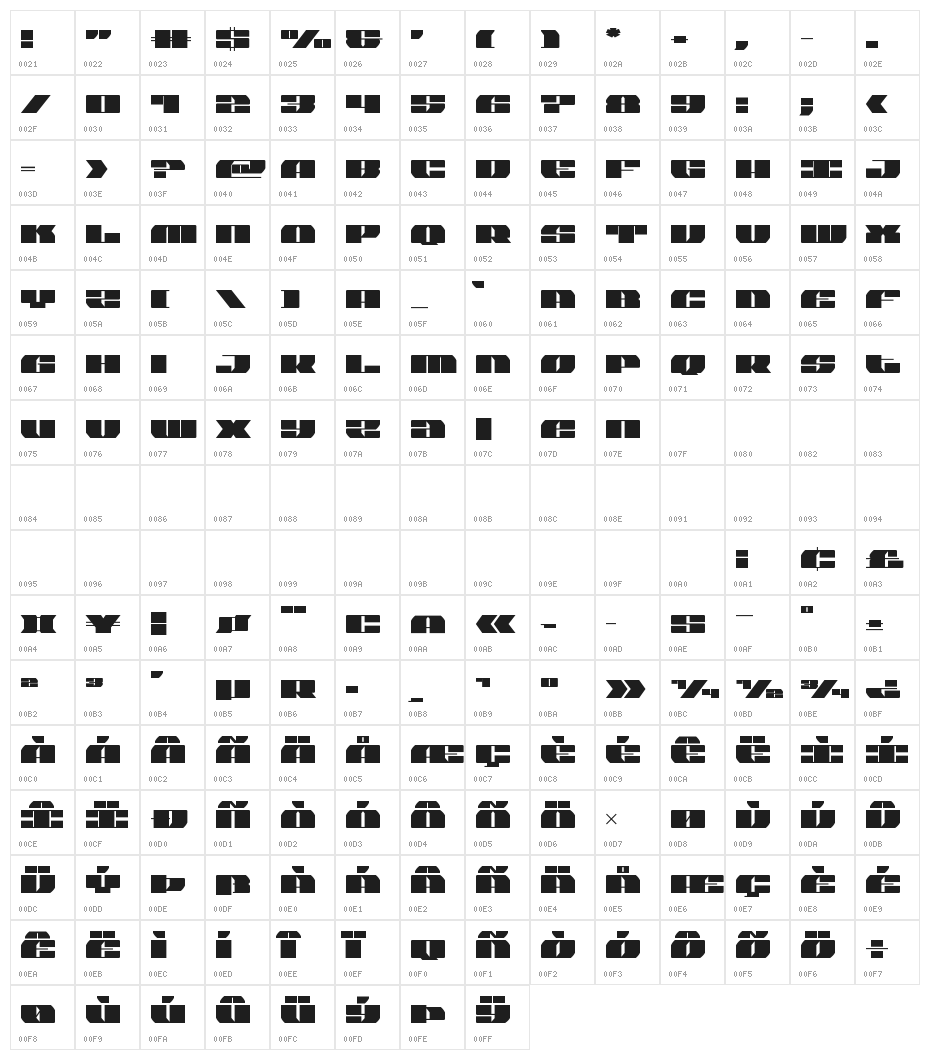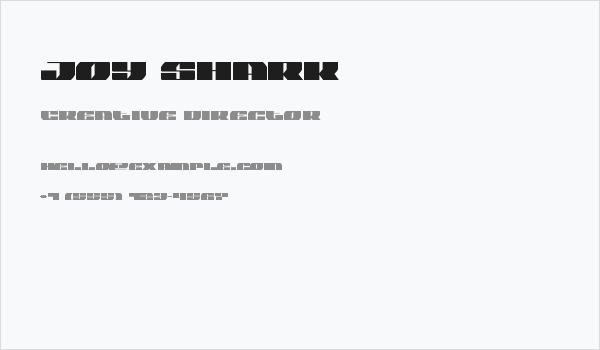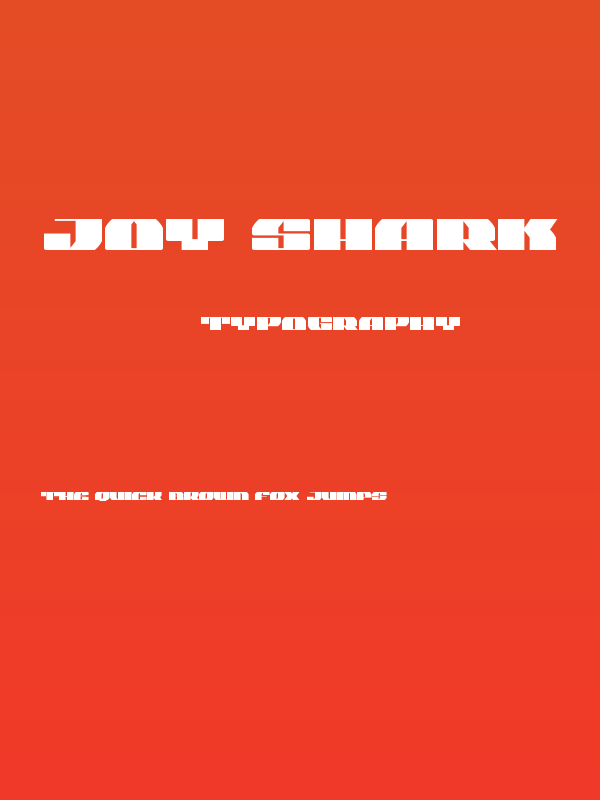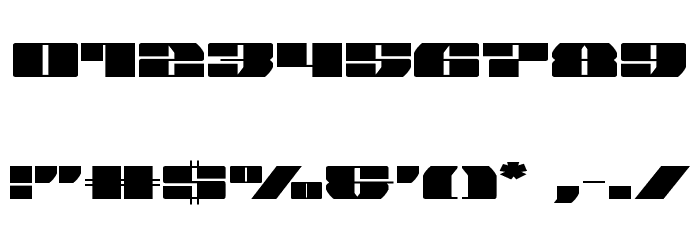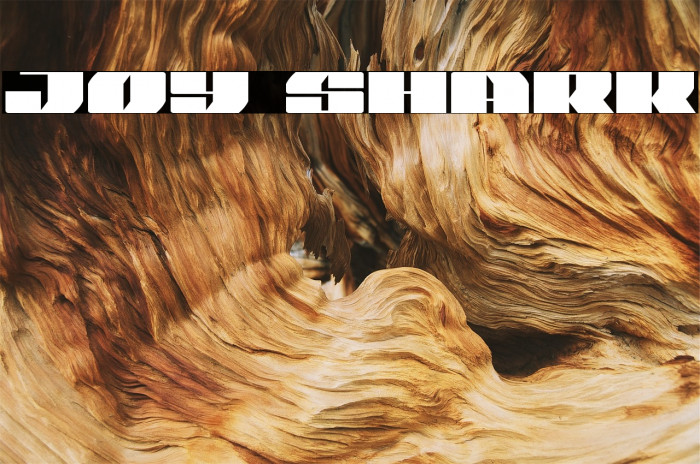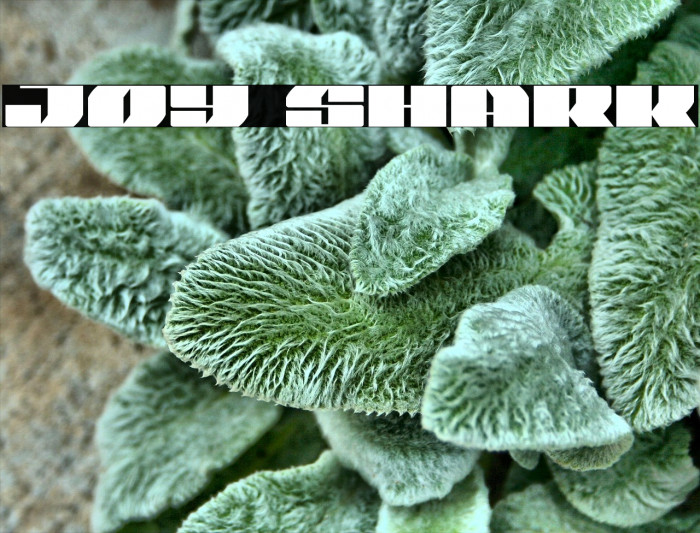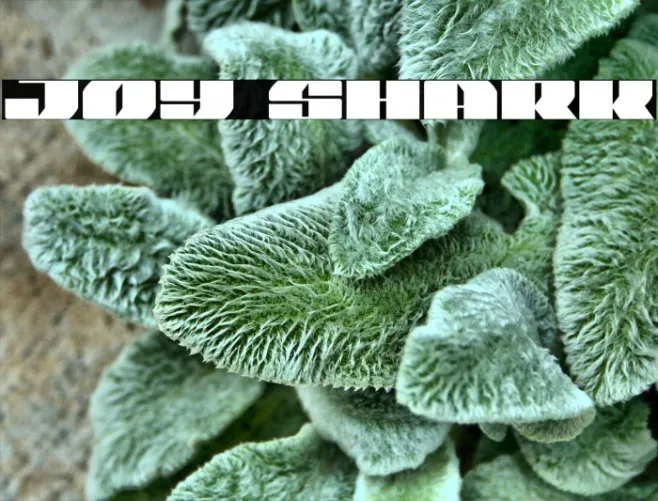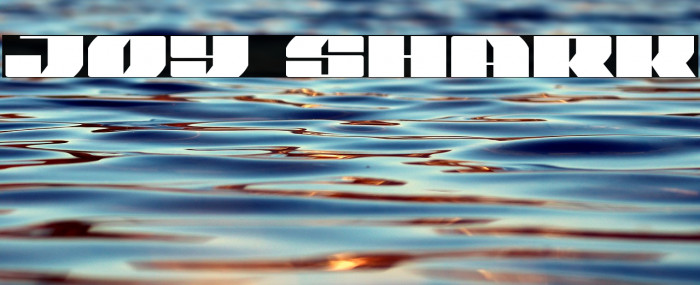
Joy Shark Font
Joy Shark Description
This font features a bold, geometric design with a futuristic and industrial feel. The characters are constructed with thick, block-like shapes, giving them a strong and commanding presence. The angular cuts and sharp edges contribute to a modern and edgy aesthetic. The uppercase and lowercase letters maintain a consistent style, with the lowercase slightly smaller but equally bold. Numbers and special characters are designed to match the overall theme, ensuring uniformity across all glyphs. The font's unique style makes it suitable for projects that require a striking and impactful visual element.
| Proposed Projects | Ideal for branding, posters, album covers, and any project needing a bold, modern look. |